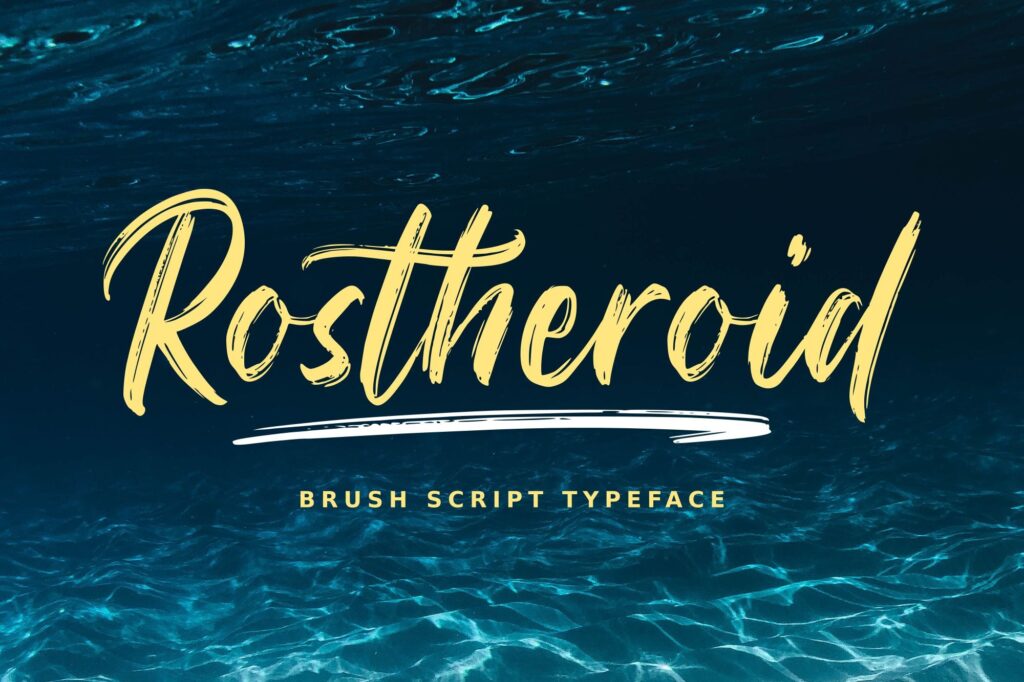
Rostheroid Font
Rostheroid Font is a stylish modern Brush font. It is perfect for branding, signature, wedding invitation, promotion, product packaging, and other needs. You will get full set of lowercase and uppercase letters, numerals and punctuation, multilingual symbols.
Rostheroid Script Brush Font